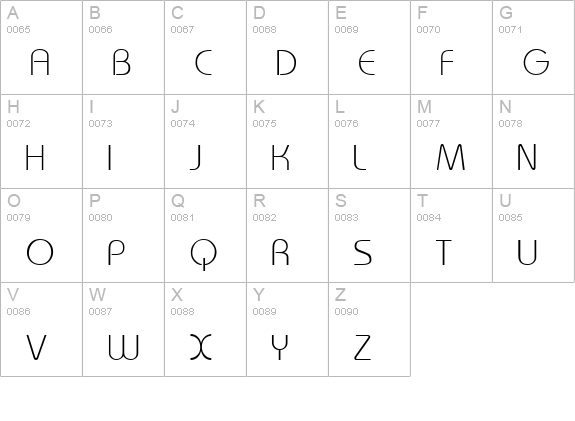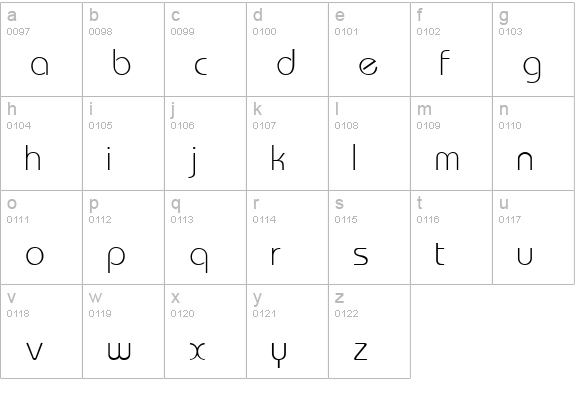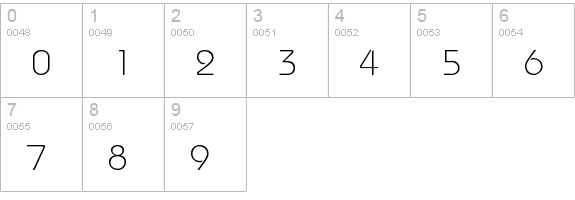
QTDoghausLight Regular Font Details
QTDoghausLight Regular is the standard, neutral variant in the QTDoghausLight typeface family \xE2\x80\x94 well suited to general body text, paragraphs, and standard typographic work.
QTDoghausLight Regular font is a delightful and versatile typeface that effortlessly combines elegance with a touch of playfulness. Its smooth lines and balanced proportions make it perfect for a wide range of design projects, from branding and packaging to editorial layouts and signage. This font exudes a sense of modernity and sophistication, making it ideal for projects that require a contemporary and stylish touch. QTDoghausLight Regular font's clean and legible letterforms ensure readability at any size, whether used for headlines or body text. One of the most remarkable features of QTDoghausLight Regular font is that it is freely available to download at FontsMarket.com. This means that you can easily access this high-quality font without any cost. The generous availability of this font allows designers and creatives to explore their ideas without limitations, making it a valuable asset for both personal and commercial projects. QTDoghausLight Regular font offers a comprehensive character set that includes uppercase and lowercase letters, numerals, punctuation marks, and a variety of special characters. With its vast range of glyphs, this font provides endless possibilities for typographic experimentation and creative expression. Whether you're designing a logo for a cutting-edge tech startup, crafting a magazine layout, or creating eye-catching social media graphics, QTDoghausLight Regular font is a reliable and versatile choice. Its timeless appeal, combined with its freely available download, ensures that it will continue to be a go-to font for designers looking to make a lasting impression.